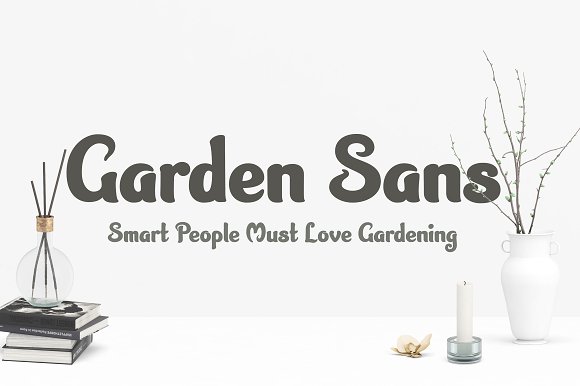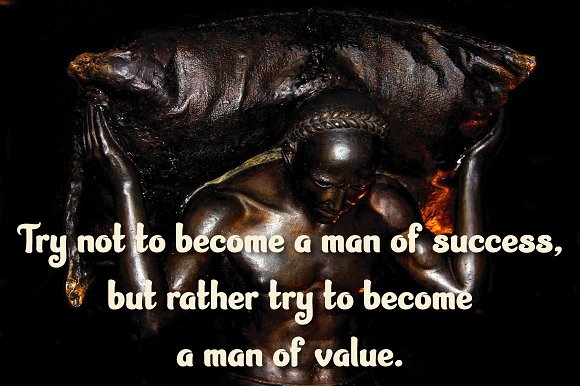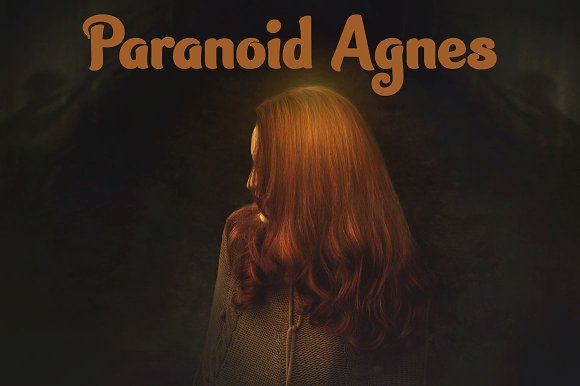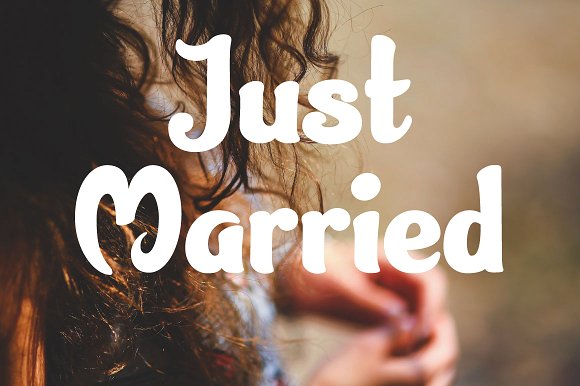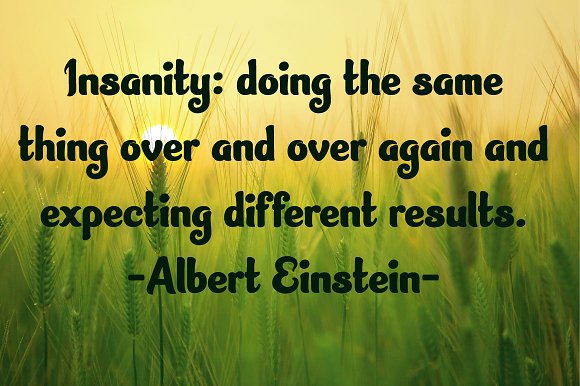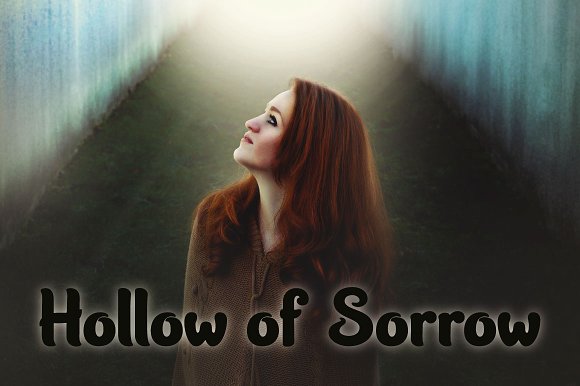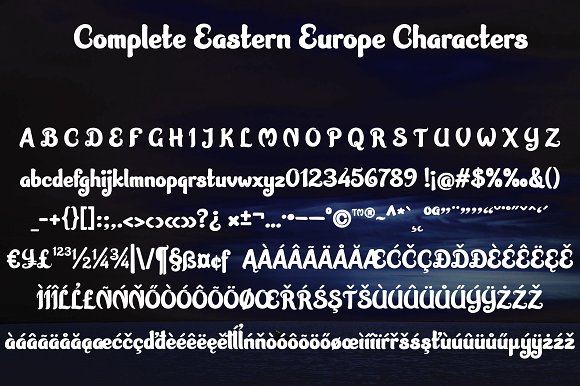
Garden Sans Font
About Garden Sans Font
Garden Sans font created by Darwinoo. A cool, bold rounded semi sans serif.
Garden Sans features over 370 unique glyphs.